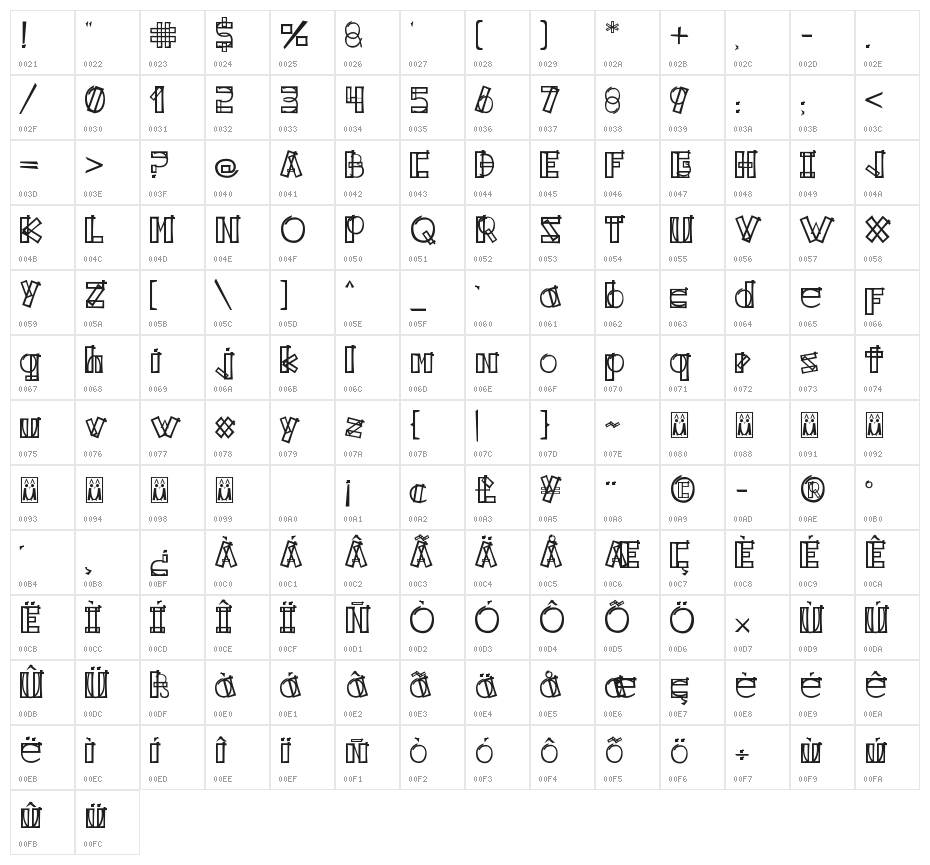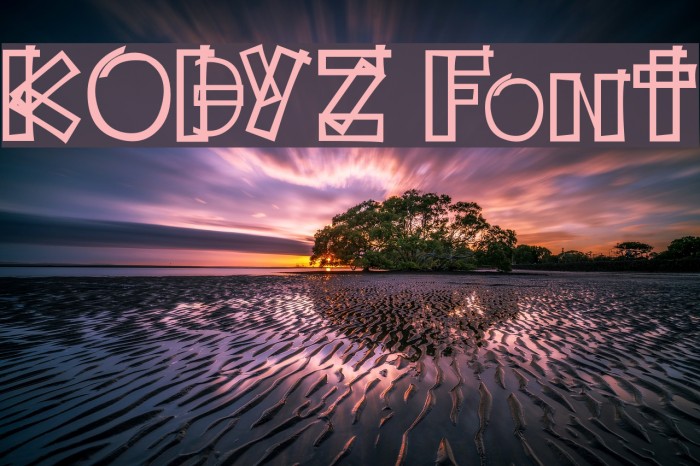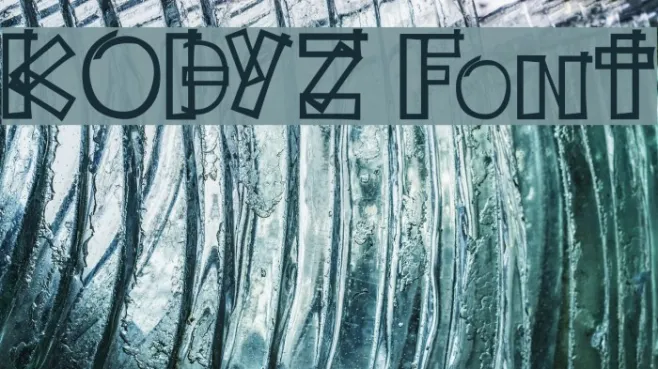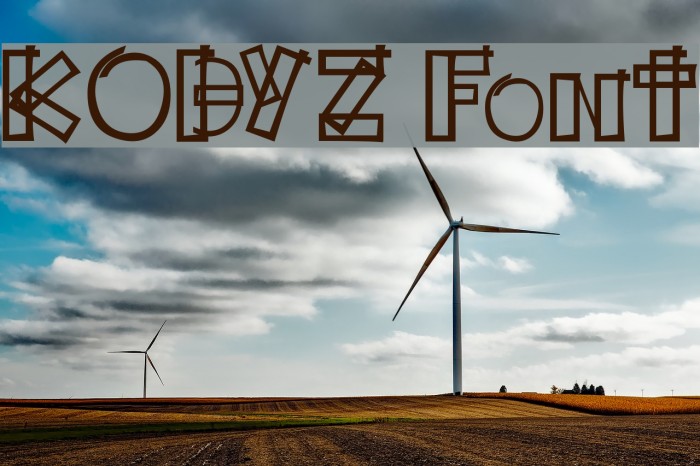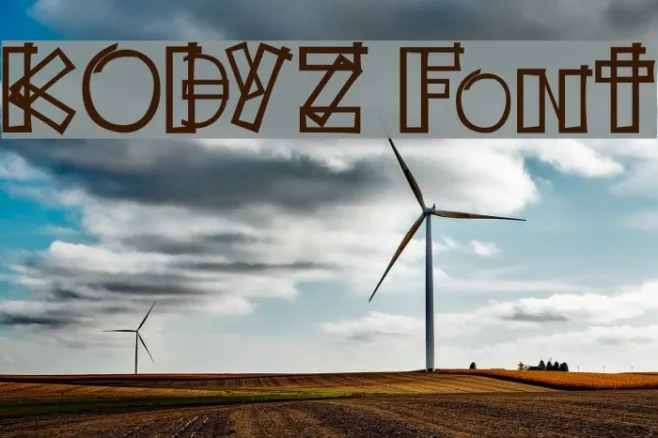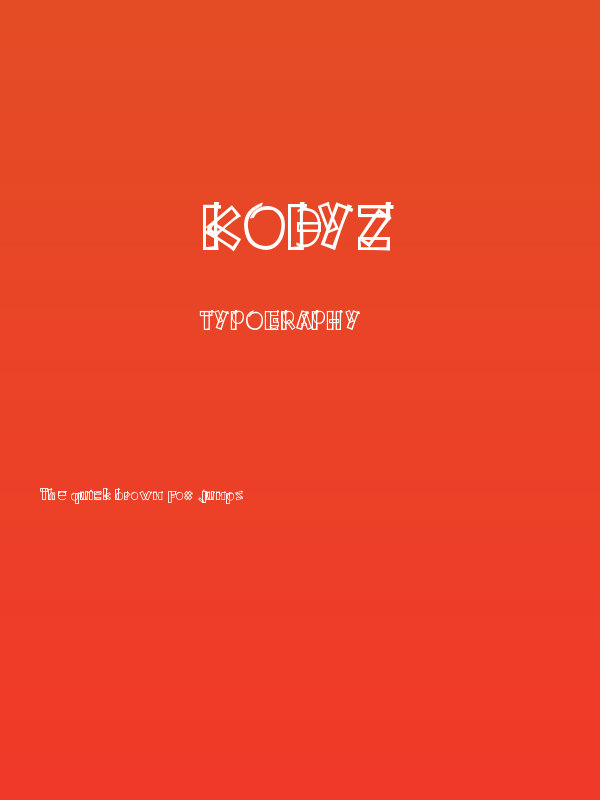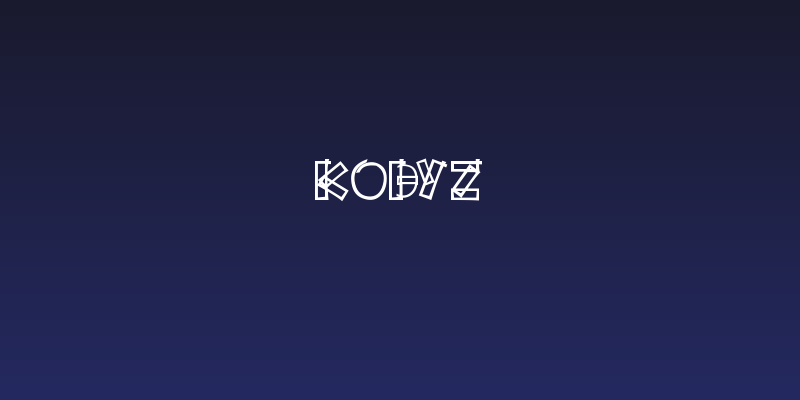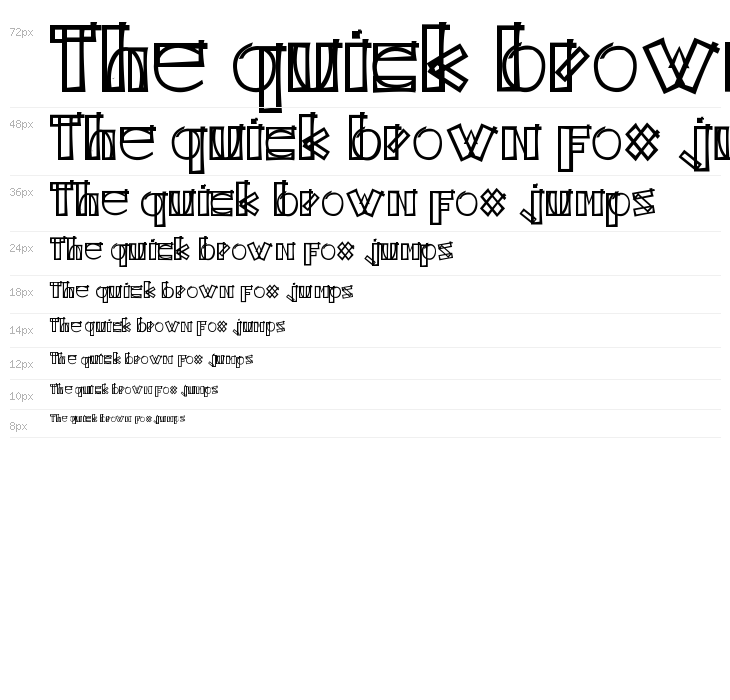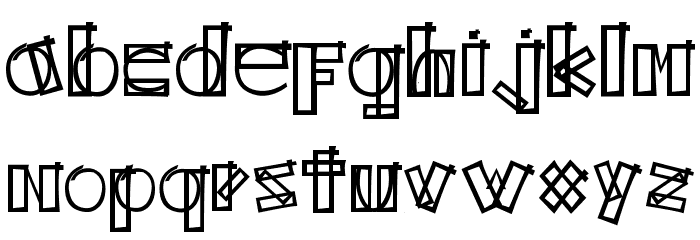
KODYZ Font
KODYZ Description
This font features a unique and playful design with a geometric and angular style. Each character is constructed with bold lines and sharp edges, creating a sense of movement and energy. The uppercase and lowercase letters share a consistent design language, with some characters incorporating a stencil-like appearance. Numbers and special characters maintain the same dynamic and bold aesthetic, making the font suitable for eye-catching designs. The overall look is modern and unconventional, perfect for projects that require a distinctive and artistic touch.
| Proposed Projects | Ideal for posters, album covers, branding, and creative digital artwork. |